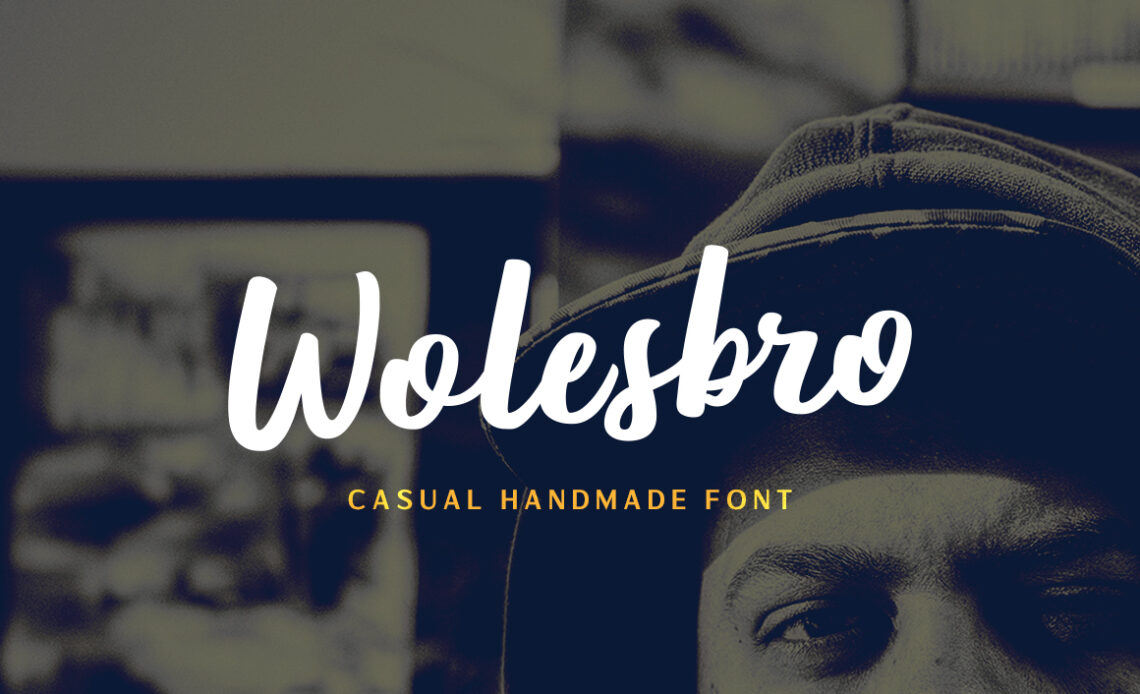
Enter the world of Wolesbro, a captivating script font family that combines elegance and practicality like no other. Created by the esteemed Locomotype, this font duo exudes a casual and unfussy charm that will add a touch of sophistication to any design project.
With its carefully crafted curves and natural flow, Wolesbro effortlessly captures the beauty of handwritten calligraphy, making it perfect for projects that require a personal and heartfelt touch. Be it wedding invitations, greeting cards, blog posts, or social media graphics, Wolesbro seamlessly blends style and readability, ensuring your message shines through with clarity and grace.
Unleash your creativity with Wolesbro's versatility, a font that effortlessly adapts to a wide range of design styles. From elegant and timeless to bold and contemporary, Wolesbro's diverse character set allows you to create designs that speak to your unique vision. Whether you're designing logos, branding materials, or eye-catching social media posts, Wolesbro's versatility ensures it will be your go-to choice for any project.
Experience the allure of Wolesbro and elevate your designs to new heights. Its captivating beauty and effortless readability will leave a lasting impression on your audience, making them fall in love with your creations. Embrace the art of typography with Wolesbro, and let your designs bloom with elegance and charm.